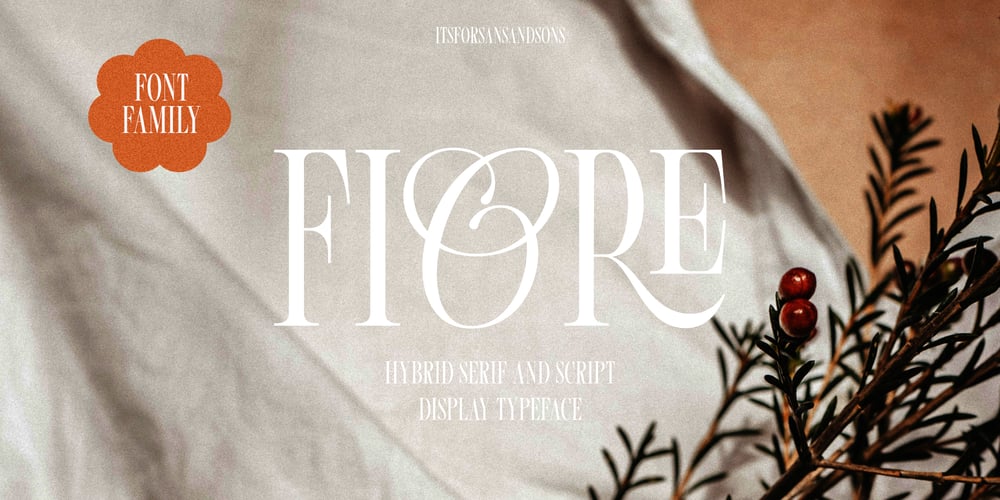
MIO FIoRE Font Family was designed by Angga Suwista and published by Sans And Sons. MIO FIoRE contains 5 styles and family package options. Mio Fiore is Modern Serif with Elegant and Luxury Style and each unique letters, consisting of a sophisticated style script and an elegant, luxury all-caps serif font. designed to create harmoniously, charming and lend themselves to high end branding, product packaging, logo designs & invitation designs.